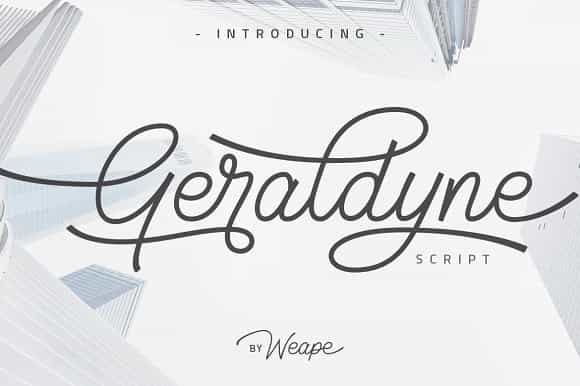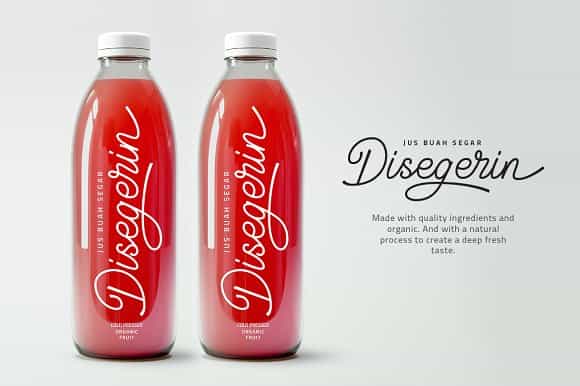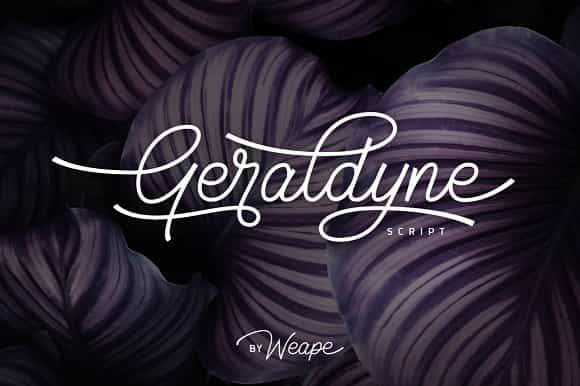
Introducing Geraldyne Font. Geraldyne – Each letter is made up of different possibilities, hence making it more diversified. With unique monoline style for your daily and project needs ex: logo, fashion, apparel, photography, watermark , quotes blog header , poster wedding invitation stationery branding letter etc. Geraldyne has several stylistics ligatures and swashes.